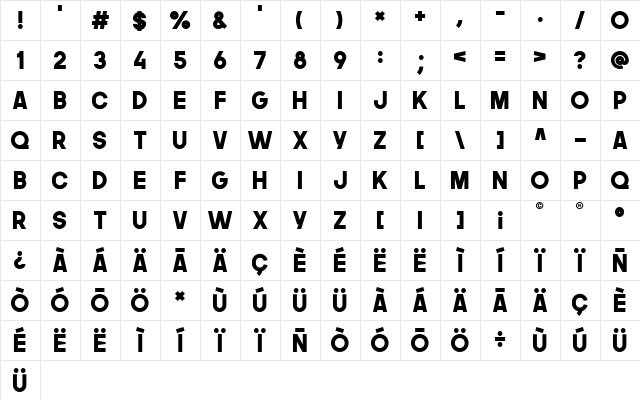
The Next Font Regular
Design Context for The Next Font Typeface
The Next Font is a composed and adaptable typeface that performs quietly and consistently across a wide range of design contexts.